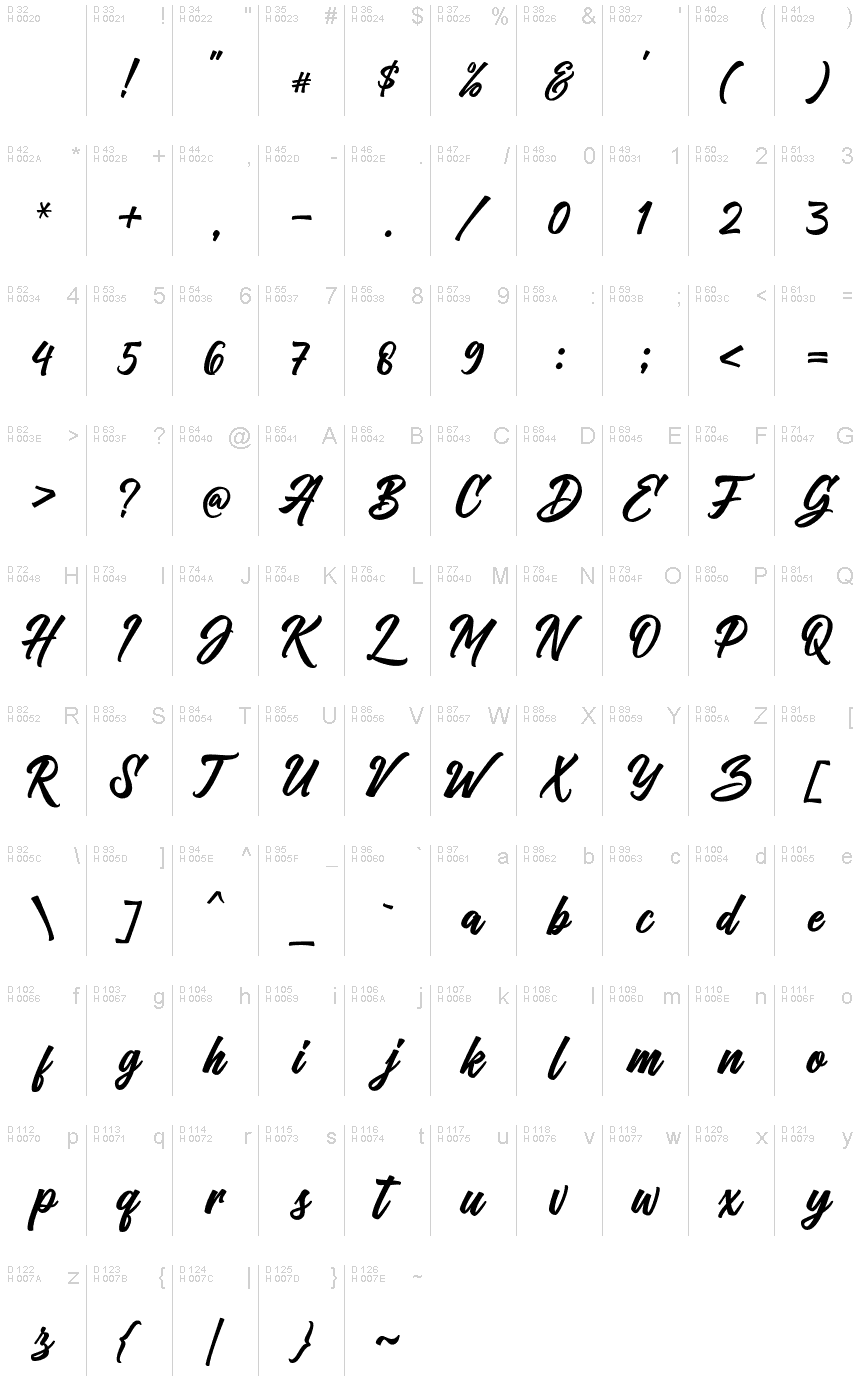
VriegbeScript
Vriegbe Script, designed by Tebaltipis Studio, is a captivating handwritten font that adds a touch of elegance and personality to any project.
With its fluid strokes and graceful curves, this font is perfect for wedding invitations, greeting cards, and love letters. Its versatility also makes it suitable for creating eye-catching logos, branding materials, and social media posts. Whether you're designing a romantic book cover or crafting an artistic poster, Vriegbe Script will effortlessly bring your ideas to life with its charming and authentic handwritten style.